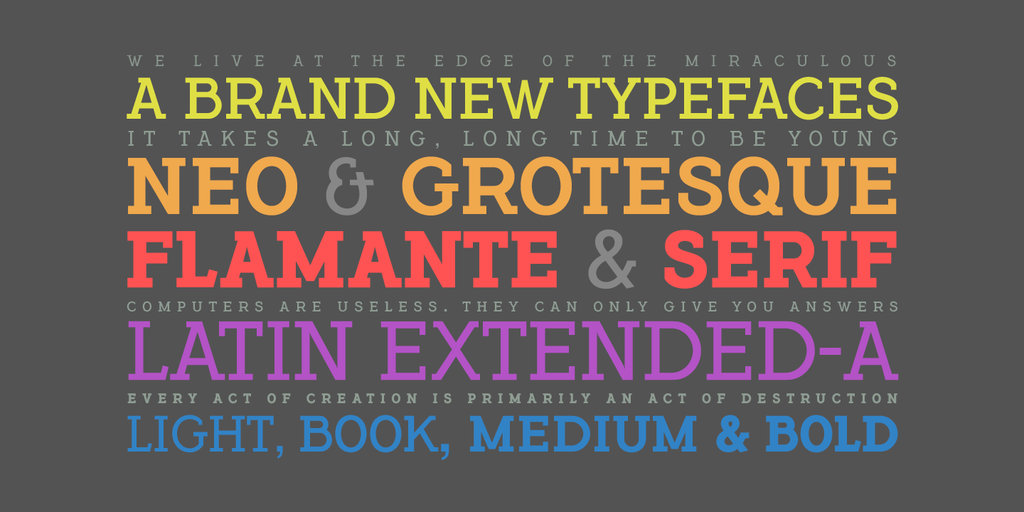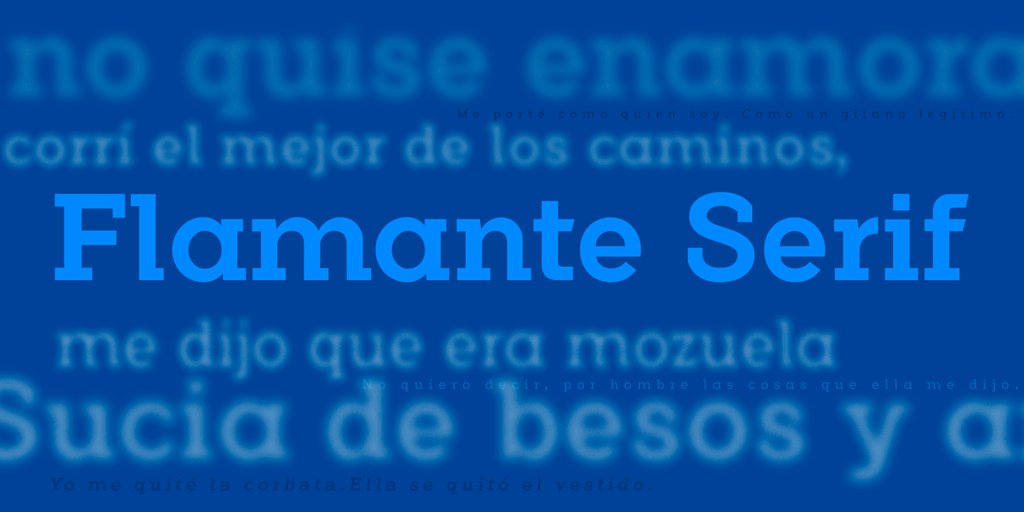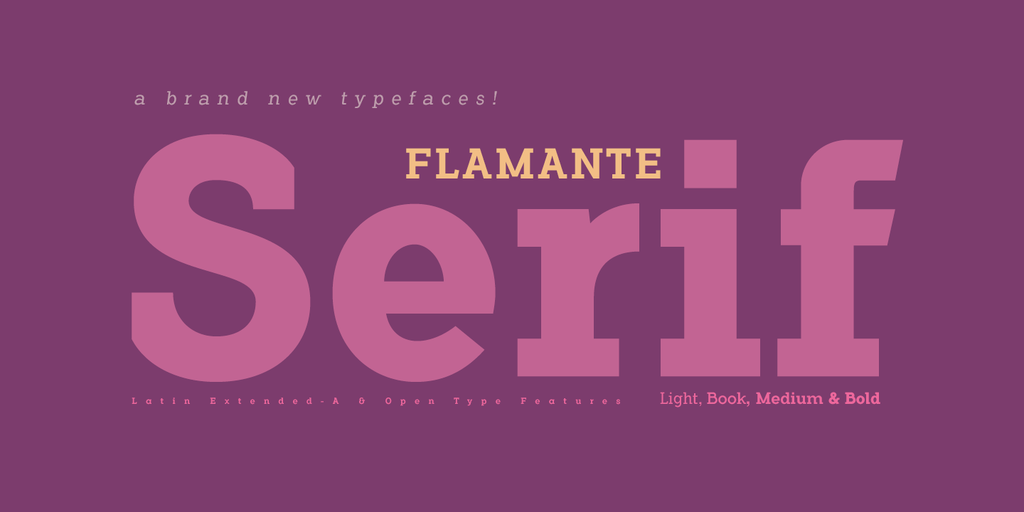
Flamante Serif
Flamante Serif Font Family
Flamante is a new family of Slab Serif fonts with four weights: Light, Book, Medium and Bold and their corresponding italic versions. The metrics and kerning have been carefully set up for fluent reading in paragraph texts.